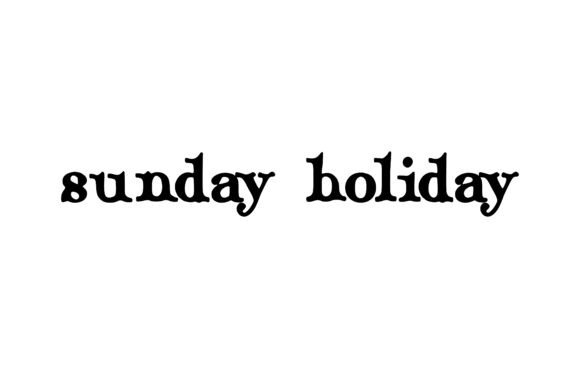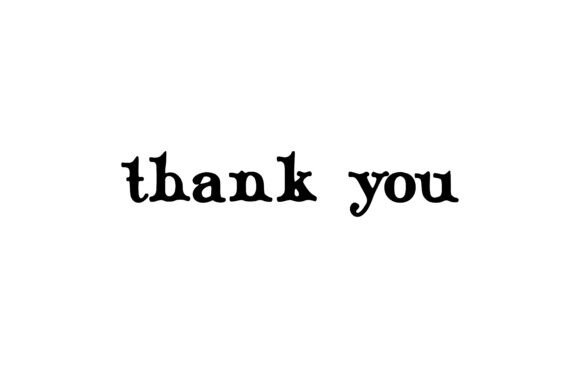
Introducing Canary Font: The Perfect Serif Font for Creative Projects
Are you looking for a font that can add a touch of romance and elegance to your creative projects? Look no further than Canary Font, an authentic serif font that is sure to become a true favorite. With its expertly designed curves and lines, Canary Font has the potential to take your ideas to the highest level.
What Makes Canary Font Special?
Canary Font is a legible and versatile font that looks great as both title and body text. Its classic serif design makes it perfect for a wide range of applications, from magazine headlines to social media graphics, branding, wedding invitations, and more. Whether you’re a designer, crafter, or DIY enthusiast, Canary Font is a great choice for any project that requires a touch of sophistication and style.
Key Features of Canary Font
• Authentic Serif Design: Canary Font features a traditional serif design that is both classic and timeless.
• Romantic Touch: The font’s elegant curves and lines add a touch of romance and whimsy to any project.
• Legible: Canary Font is designed to be easy to read, making it perfect for both title and body text.
• Versatile: The font is suitable for a wide range of applications, from print to digital media.
Use Cases for Canary Font
Canary Font is a versatile font that can be used in a variety of creative projects, including:
• Magazine Headlines: Add a touch of elegance to your magazine headlines with Canary Font.
• Social Media Graphics: Use Canary Font to create eye-catching social media graphics that stand out from the crowd.
• Branding: Canary Font is a great choice for branding projects that require a touch of sophistication and style.
• Wedding Invitations: Add a romantic touch to your wedding invitations with Canary Font.
• Cards and Stationery: Use Canary Font to create beautiful cards and stationery that are sure to impress.
Why Choose Canary Font?
With so many fonts to choose from, why should you choose Canary Font? Here are just a few reasons:
• Unique Design: Canary Font features a unique and elegant design that sets it apart from other serif fonts.
• High-Quality: The font is expertly designed and crafted to ensure high-quality results.
In conclusion, Canary Font is a versatile and elegant serif font that is perfect for a wide range of creative projects. With its romantic touch, legible design, and high-quality craftsmanship, Canary Font is sure to become a true favorite among designers and crafters. Whether you’re looking to add a touch of sophistication to your branding, create beautiful wedding invitations, or simply want to add some elegance to your social media graphics, Canary Font is the perfect choice.